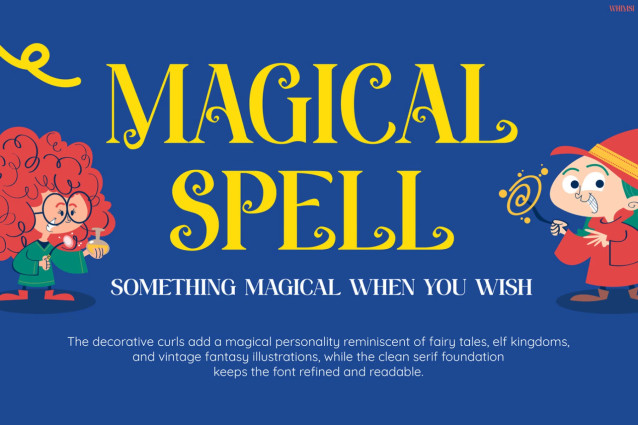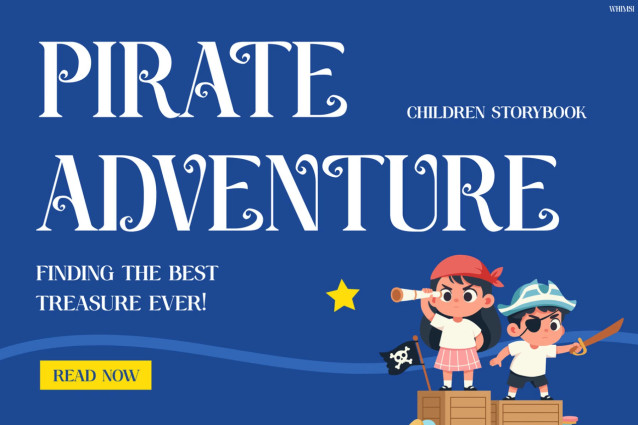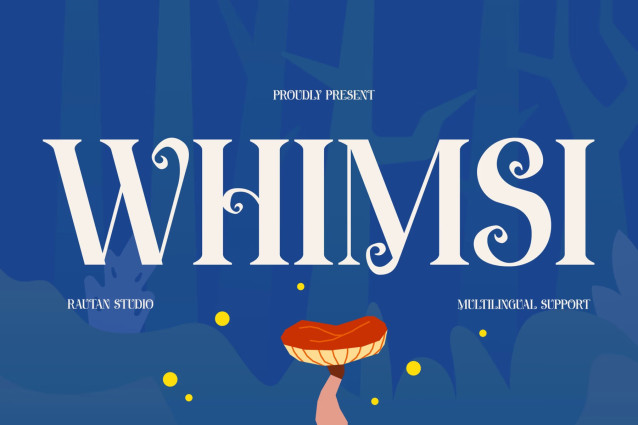
Whimsi Font
Kids Font Whimsi – Whimsical Storybook Font for Magical Kids Designs
Kids Font Whimsi is a playful and imaginative display font that instantly transforms ordinary text into magical visual storytelling. With its decorative serif style, charming curves, and fantasy-inspired details, this font creates a delightful storybook atmosphere from the very first glance. Moreover, the artistic letterforms feel elegant yet cheerful, so your typography looks both creative and highly readable. In addition, the unique shapes give every headline more personality and visual impact.
Because of its balanced appearance, Kids Font Whimsi works beautifully for both print and digital projects. Furthermore, the whimsical styling helps designs feel warmer, more expressive, and far more memorable. Even better, this font comes with Multilingual Support for 67 Languages, so you can create engaging international designs more easily and more professionally.